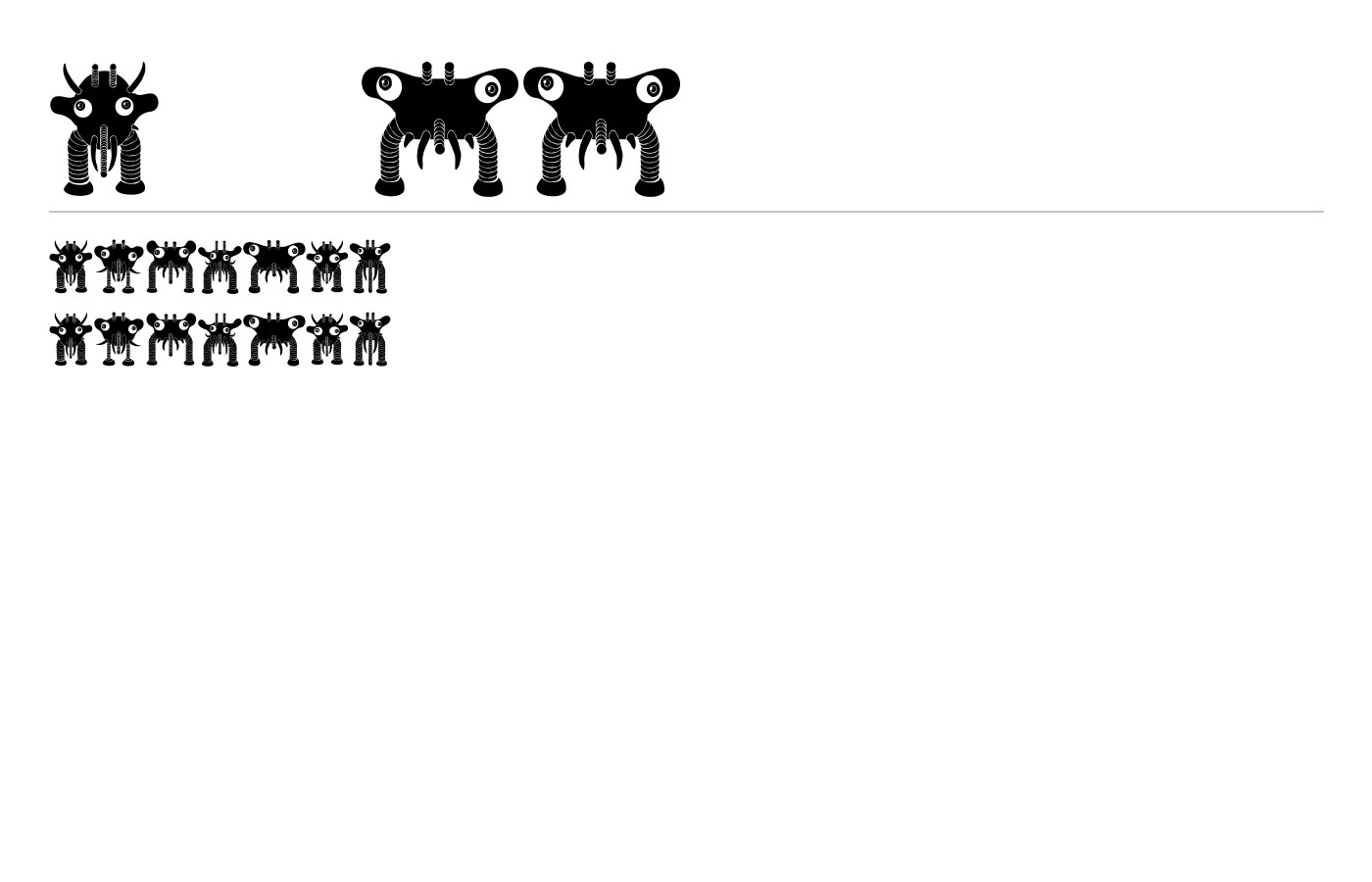
The Alleen font is a highly decorative and whimsical display typeface characterized by bold, intricate shapes that form quirky, almost creature-like glyphs rather than traditional letterforms. Its playful and imaginative style makes it ideal for creative projects, children’s media, or artistic branding where a fun, unique visual identity is desired. Due to its detailed and unconventional nature, Alleen works best in large sizes for headlines or logos rather than body text.
Alleen Font
About Alleen Font
| Font family | Alleen Font |